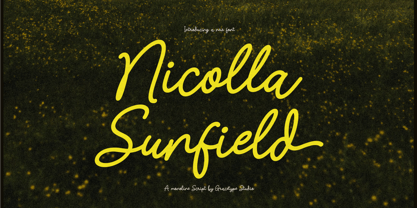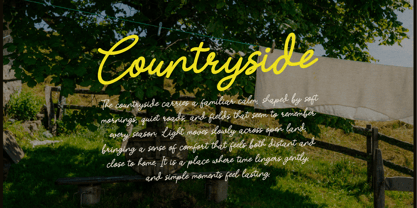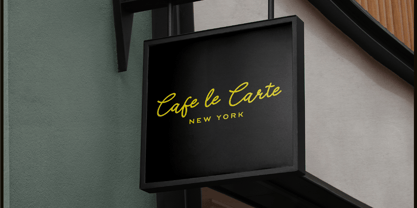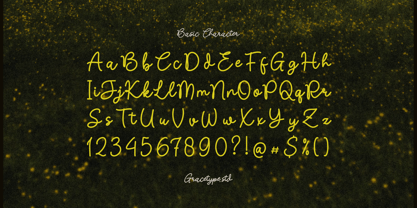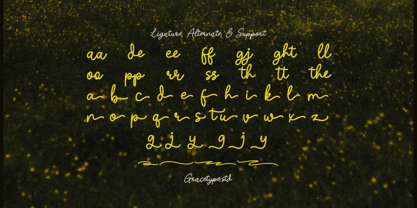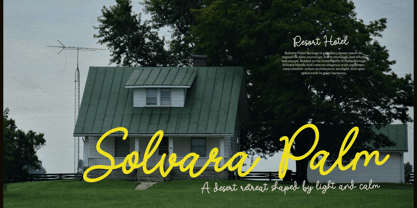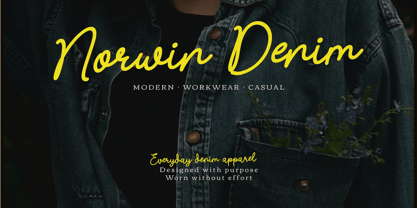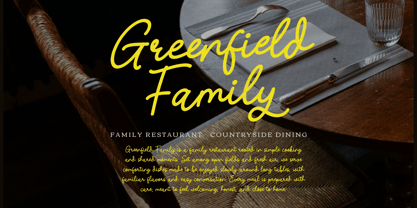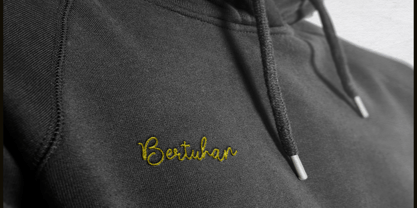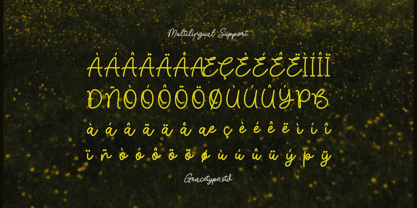
Averty Meadow
by Tini Fitriani
The Averty Meadow Font Family was designed by and published by Tini Fitriani. Averty Meadow contains 2 styles and family package options. More about this family
Averty Meadow | Monoline Script, from Gracetypestudio, suitable for any projects such as: logos, branding projects, homeware designs, product packaging, mugs, quotes, posters, shopping bags, t-shirts, book covers, name card, invitation cards, greeting cards, label, photography, watermark, special events, and all your other lovely projects that need a Script taste.